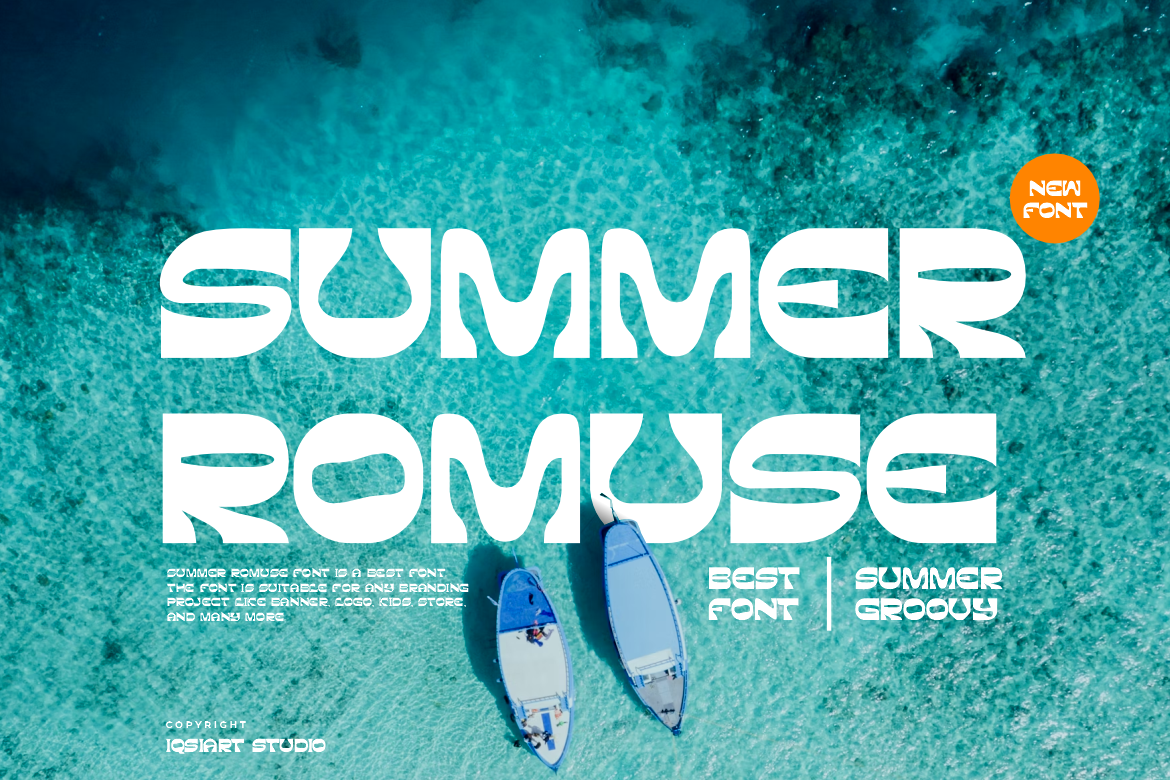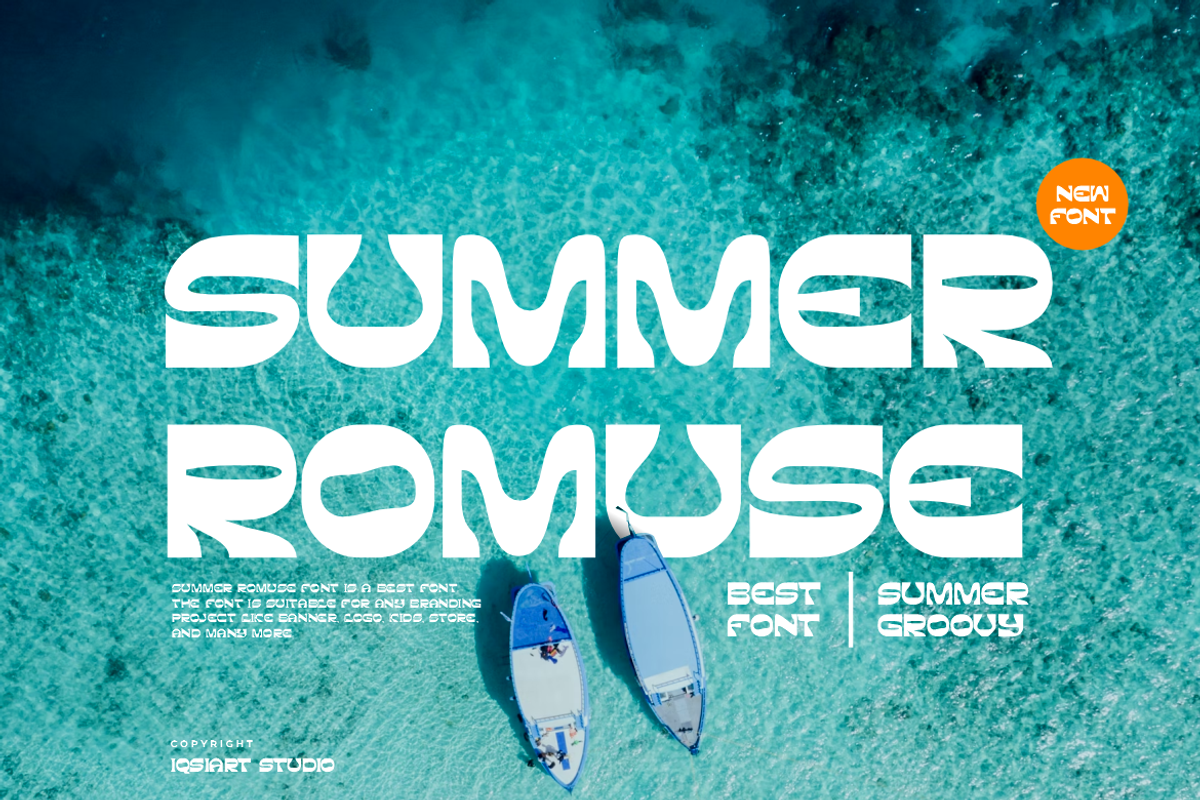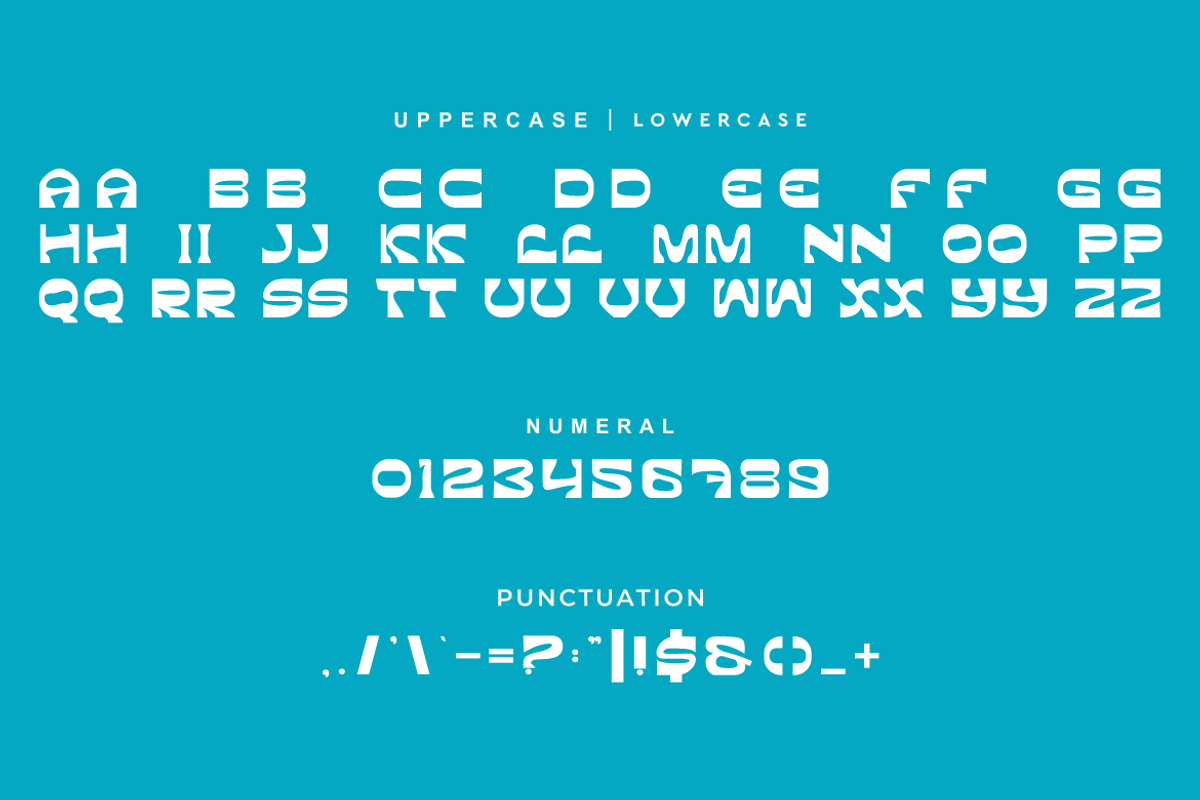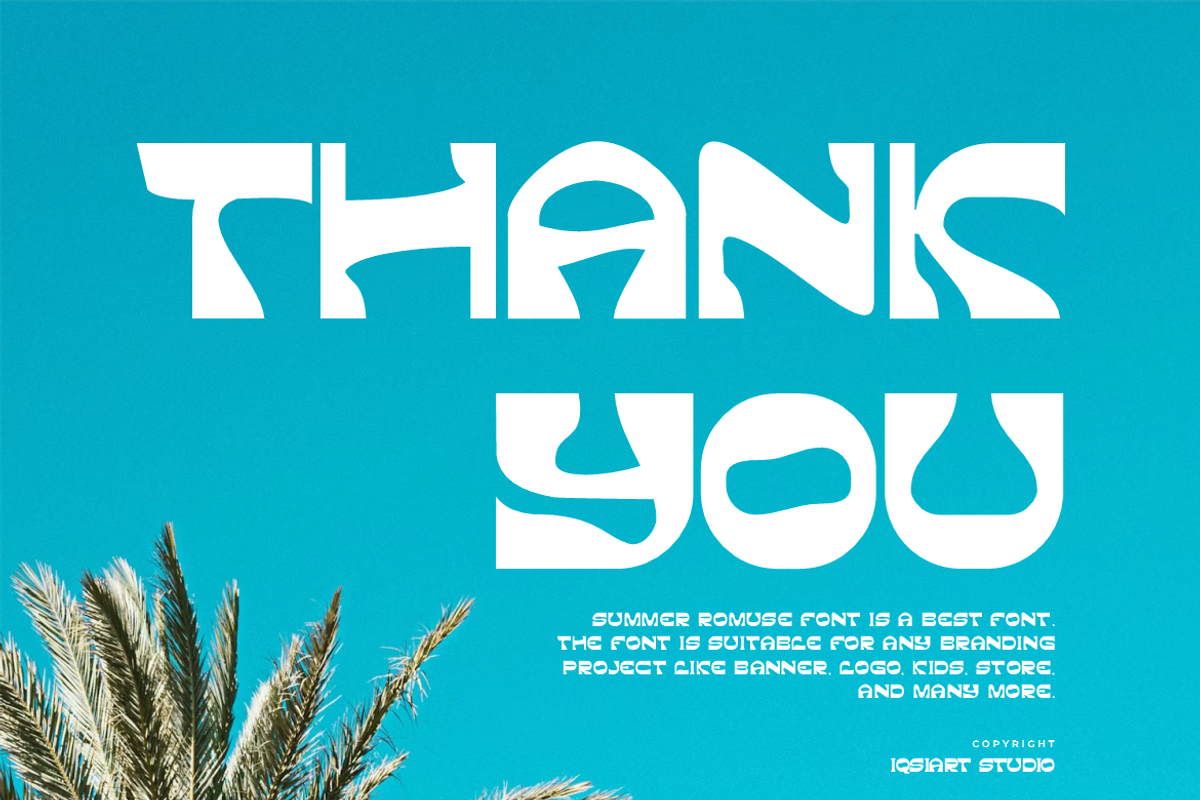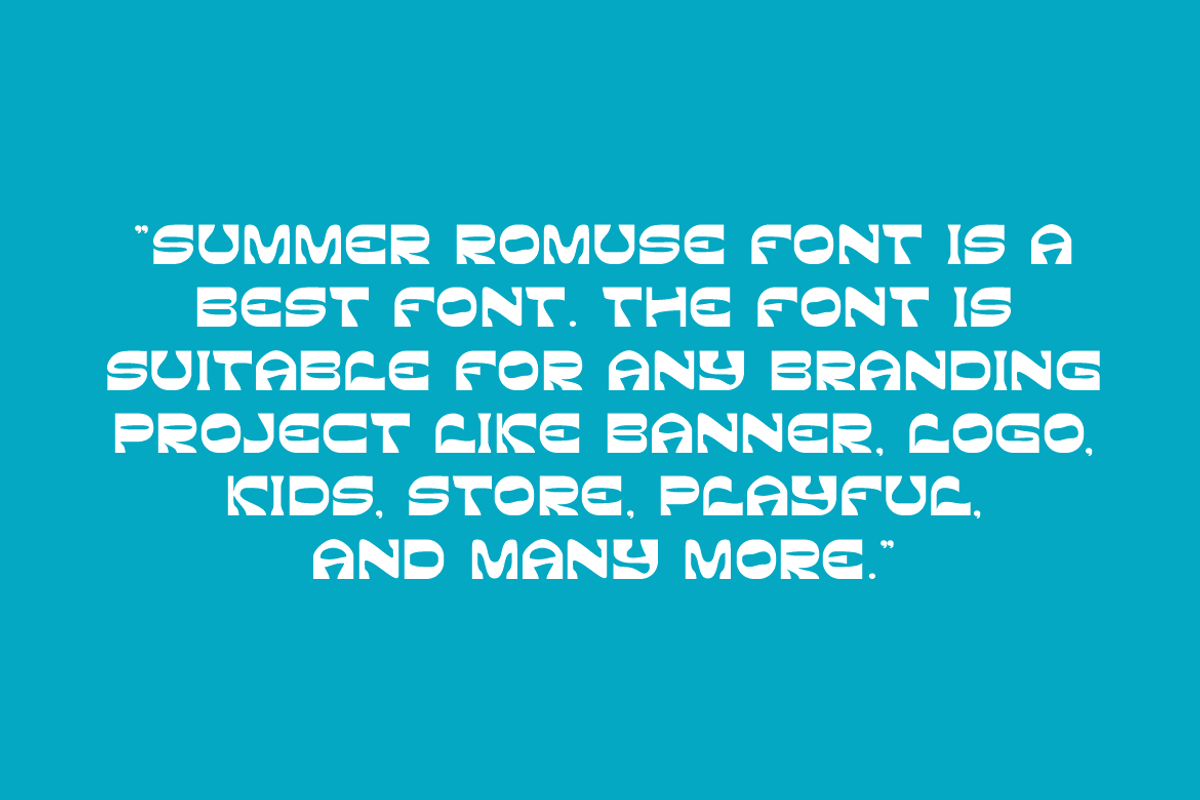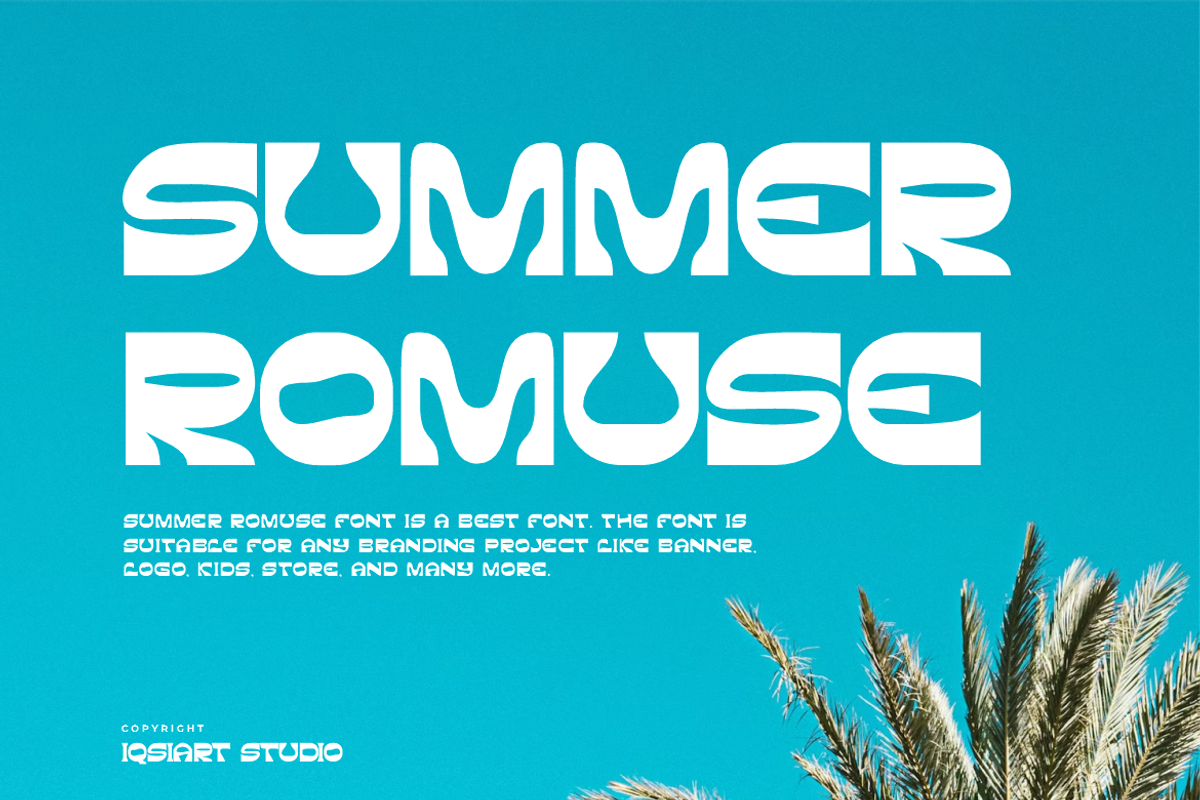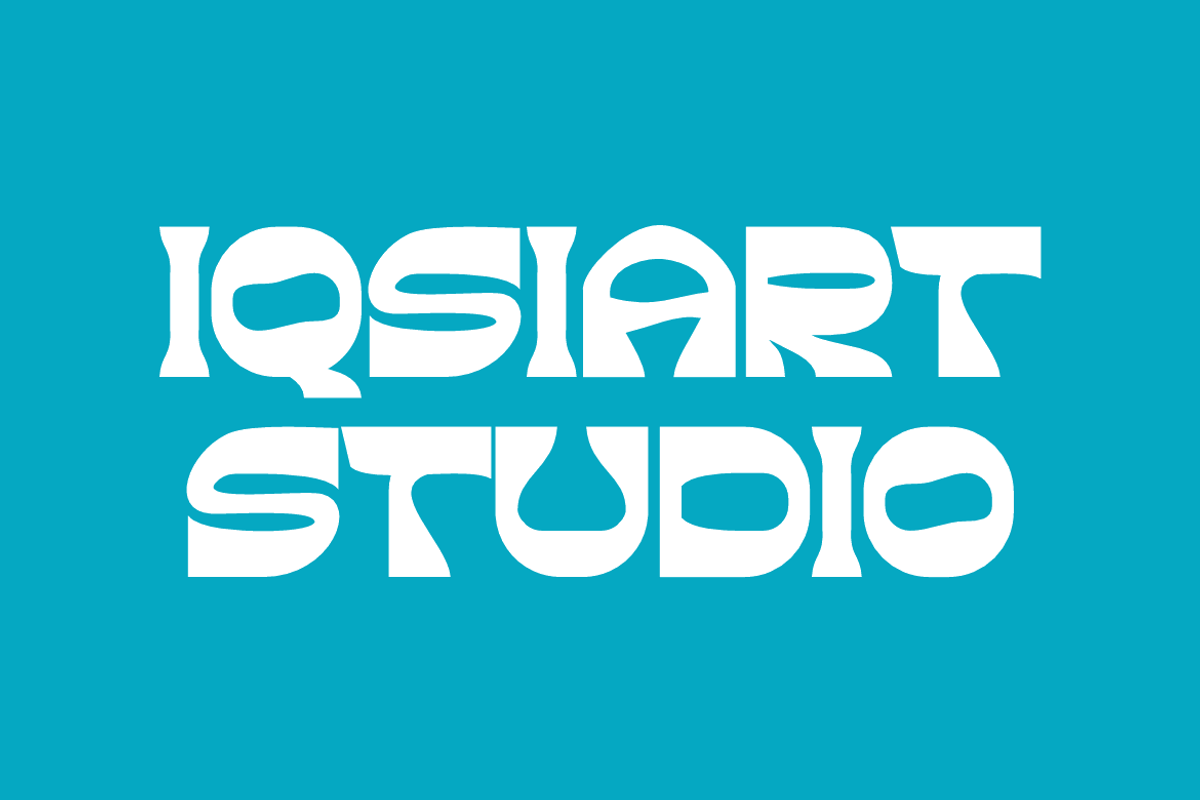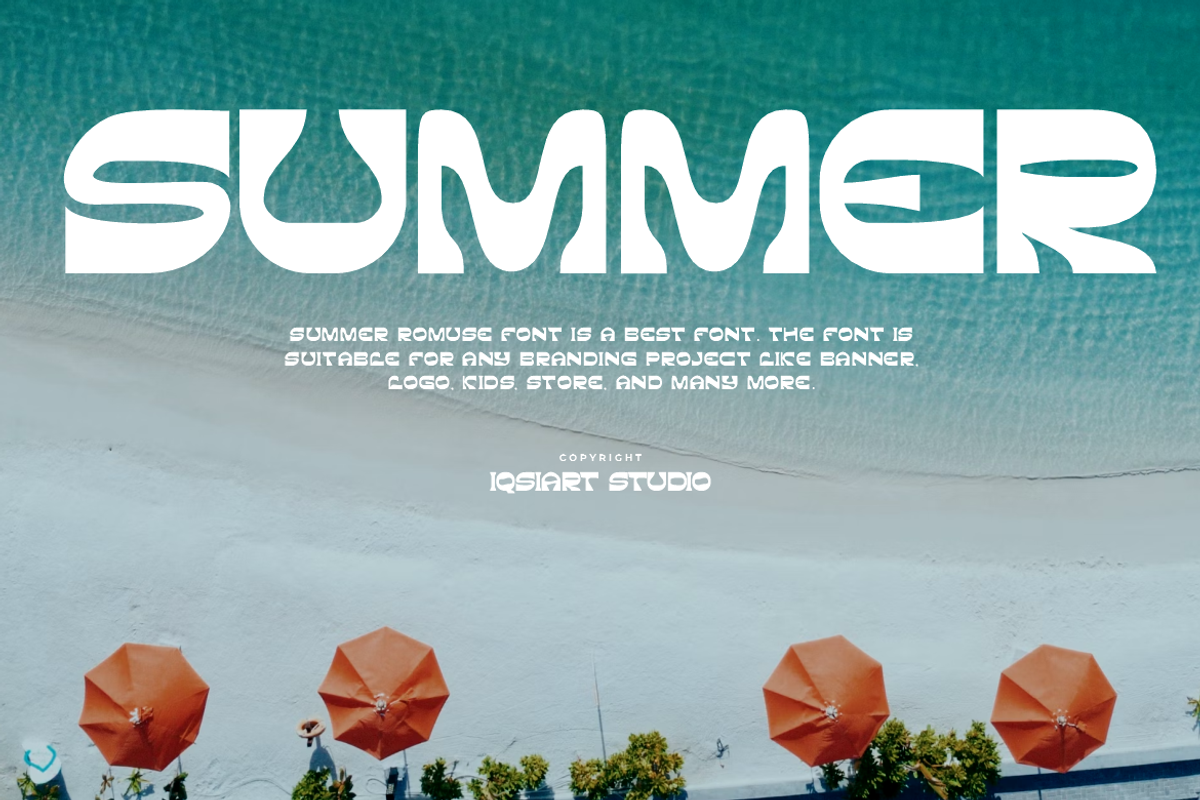
Summer Romuse Font
Summer Romuse Font is a best and authentic display font. This font can be used for your various needs. We provide various themes and font styles. visit our profile to get a wide variety of themes and different font styles you need.